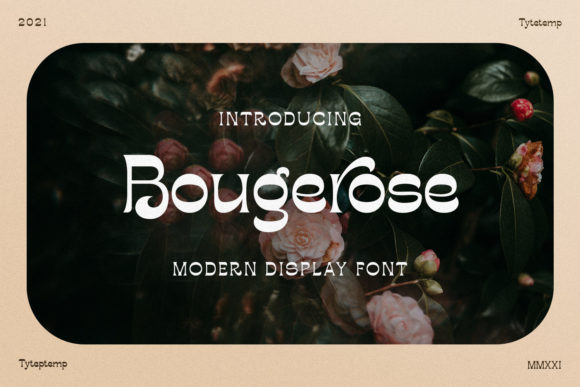
The Designer’s Delight: Bougerose Font
I’ll never forget the time I was working on a fashion editorial project, and my client asked for a font that would make their brand stand out. I scoured the internet, tried countless fonts, but nothing seemed quite right. That was until I stumbled upon Bougerose Font. It was love at first sight! 💕 This beautiful and modern display font instantly elevated my design, and I knew I had found the perfect fit. In this article, I’ll share my experience with Bougerose Font, its features, and how to make the most of it in your creative projects.
- ✨ Stunning Ligatures: Bougerose Font comes with a range of ligatures that add a touch of elegance to any text.
- ✅ Easy to Read: Despite being a display font, Bougerose is surprisingly legible, even at smaller sizes.
- 💥 Versatile: Perfect for editorial projects, logo design, clothing branding, product packaging, magazine headers, or simply as a stylish text overlay.
- 🎨 Highly Customizable: With OpenType features and glyphs, you can experiment with different styles to match your brand’s tone.
While Bougerose Font is exceptional, there are a few things to keep in mind:
- ⚠️ Limited Use in Body Text: As a display font, Bougerose might not be the best choice for lengthy body text. It’s perfect for headings and titles, though!
- 🤔 Requires Some Exploration: With so many features and glyphs, it might take some time to get familiar with the font’s capabilities.
The Story Behind Bougerose Font
Bougerose Font was designed with the intention of creating a modern, elegant, and versatile display font. Inspired by classic typography and modern design trends, Bougerose Font aims to bring a touch of sophistication to any creative project. While the designer’s story might be shrouded in mystery, their passion for typography and design is evident in every detail of the font.
Q: What is Bougerose Font best used for?
A: Bougerose Font is perfect for editorial projects, logo design, clothing branding, product packaging, magazine headers, or simply as a stylish text overlay.
Q: Is Bougerose Font suitable for body text?
A: While Bougerose Font is legible, it’s primarily designed as a display font. It’s best used for headings and titles rather than lengthy body text.